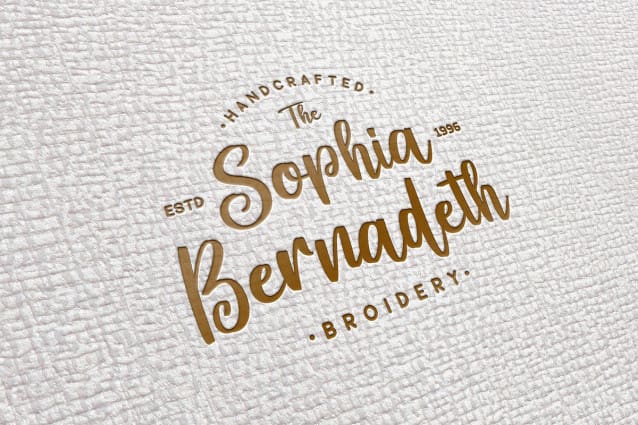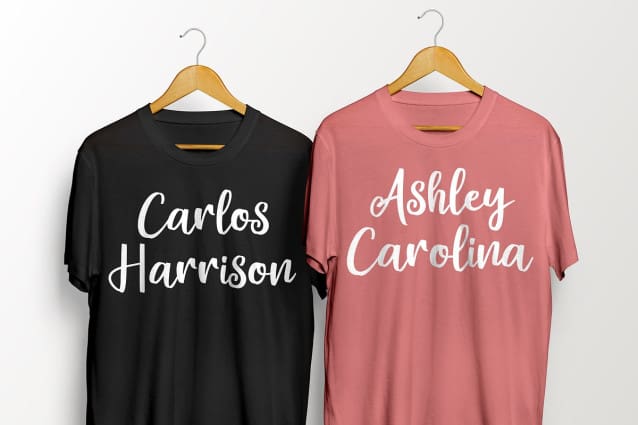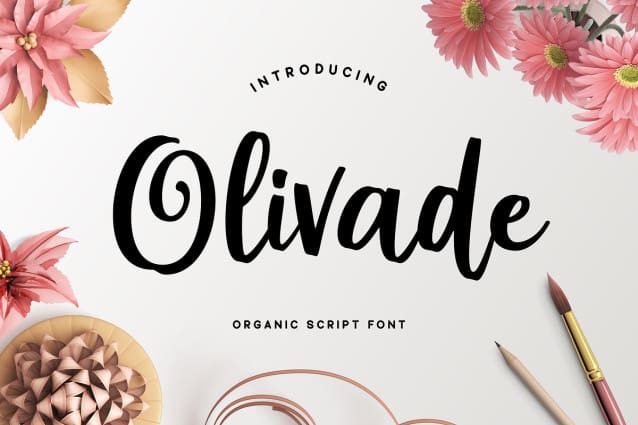
Olivade Script Font
Olivade Script Font, is a fresh and organic script font with a cool feel. Olivade is perfect use for a logo for branding, typography design, christmas card, product packaging, invitation, quotes, t-shirt design, label poster, special events and anything that need handwriting taste.